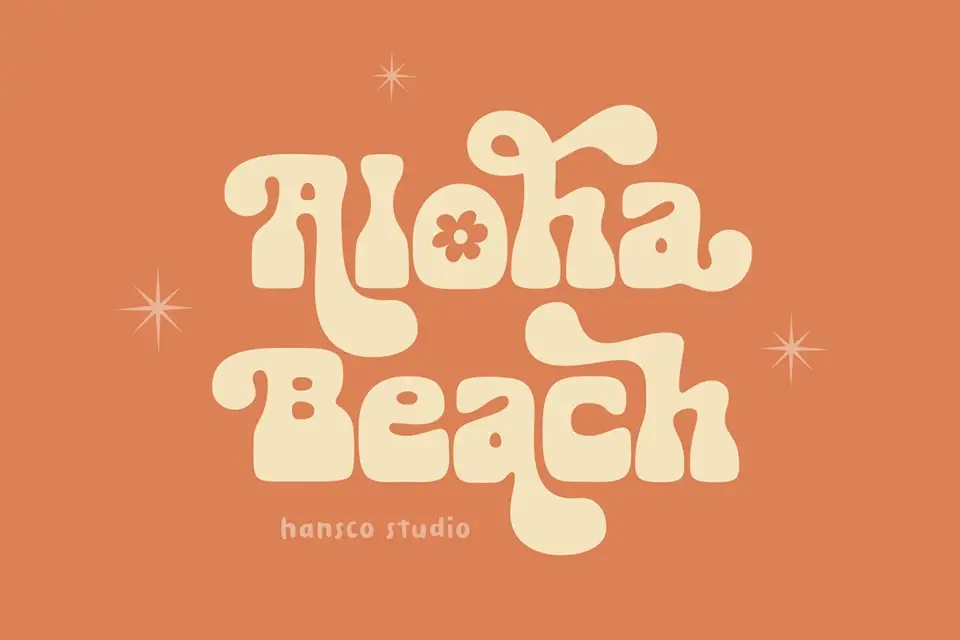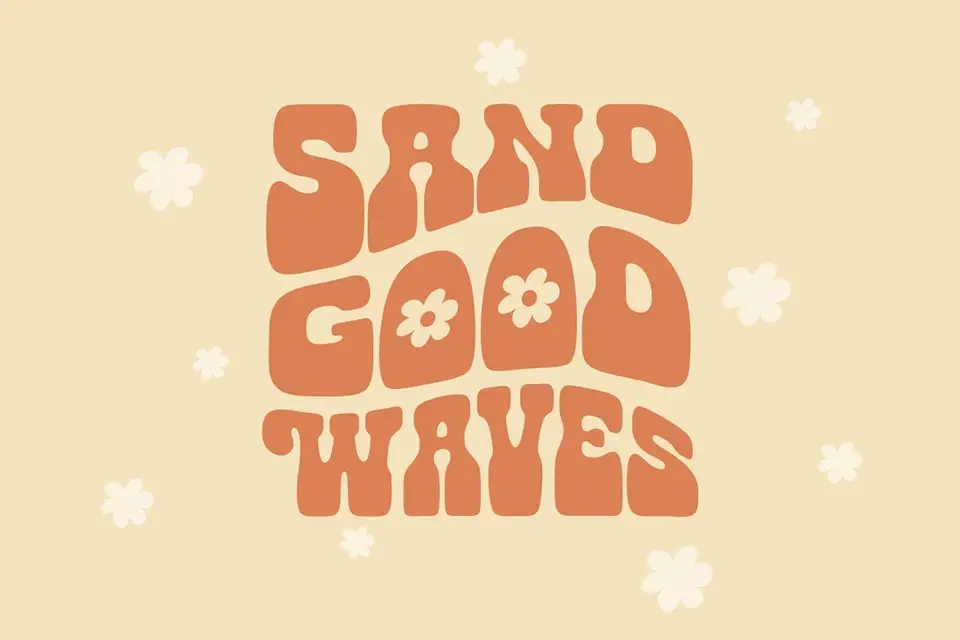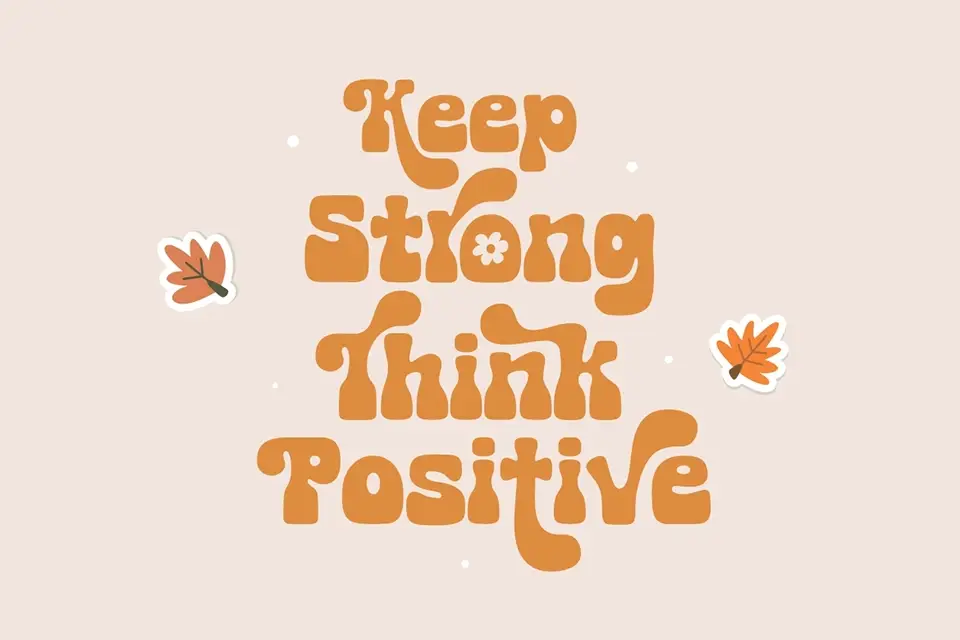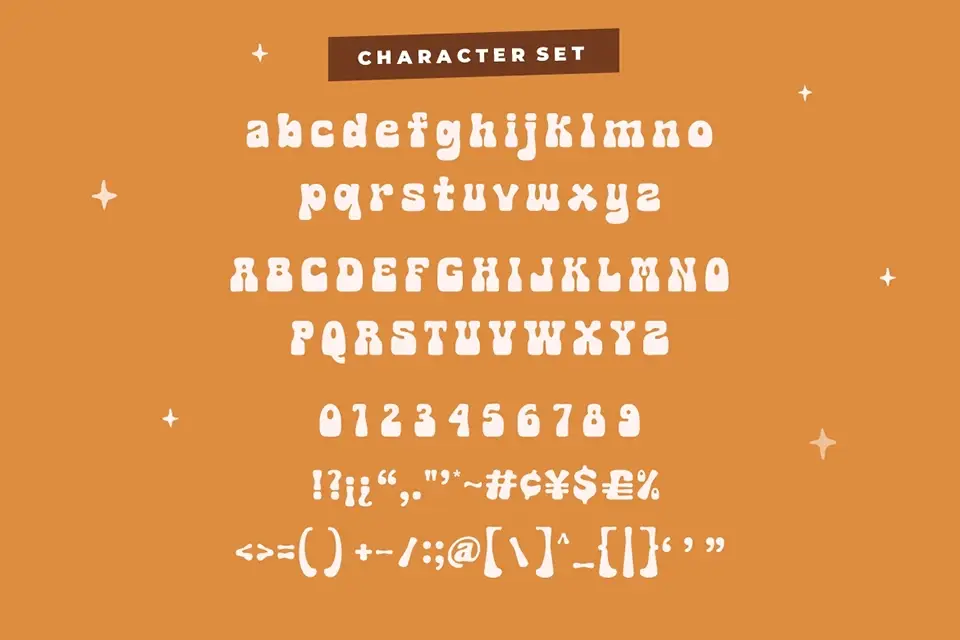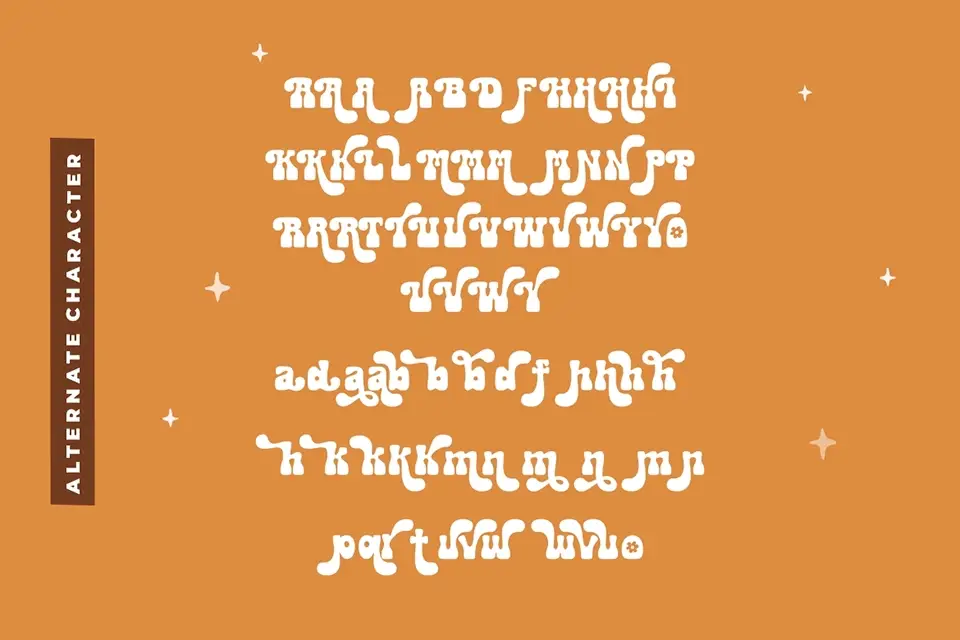
Aloha Beach Font
Aloha Beach Font delivers a robust, groovy aesthetic defined by its heavy weight, tubular letterforms, and softly rounded edges. This display slab serif features a slightly condensed structure and consistent thick strokes, ensuring a playful yet substantial presence. It channels a nostalgic 1970s surf culture vibe, bringing casual energy to any layout. Designers will find this typeface highly effective when crafting vibrant coastal apparel logos, eye-catching sticker designs, or lively event posters that demand a vintage touch. It excels when applied to short, punchy headlines requiring high visibility. Conversely, its heavily stylized nature makes it challenging to read at smaller scales, rendering it unsuitable for dense editorial body text or serious corporate identities.
Vibrant coastal lifestyle apparel logos
Eye-catching retro event posters
Nostalgic product packaging headlines
Small-scale editorial body text
Serious corporate legal documents
Minimalist high-end tech interfaces